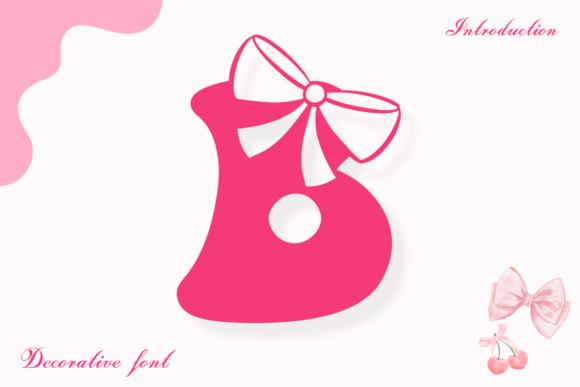
Groovy Cute Bow Font: The Perfect Blend of Retro Flair and Sweet Femininity
Are you a designer or crafter looking for a font that combines the best of both worlds – retro charm and sweet femininity? Look no further than the Groovy Cute Bow Font! This decorative font is designed to add a touch of playfulness and whimsy to your fashion branding, girly logos, and crafts. With its unique blend of playful shapes and adorable bow elements, Groovy Cute Bow is sure to make your designs stand out from the crowd.
What is Groovy Cute Bow Font?
Groovy Cute Bow Font is a carefully crafted decorative font that takes inspiration from the retro era, while infusing it with a modern twist of sweet femininity. The font features a range of playful shapes, including bows, flowers, and other decorative elements that are sure to add a touch of whimsy to your designs. Whether you’re creating a logo for a fashion brand, designing a label for a craft project, or simply looking for a fun and playful font to add to your design arsenal, Groovy Cute Bow is the perfect choice.
Key Features of Groovy Cute Bow Font
- Retro Flair: Groovy Cute Bow Font takes inspiration from the retro era, with a modern twist that makes it perfect for contemporary designs.
- Sweet Femininity: The font features adorable bow elements and playful shapes that add a touch of sweet femininity to your designs.
- Decorative Elements: The font includes a range of decorative elements, including bows, flowers, and other shapes that can be used to add visual interest to your designs.
- Playful and Whimsical: Groovy Cute Bow Font is designed to add a touch of playfulness and whimsy to your designs, making it perfect for fashion branding, girly logos, and crafts.
Uses for Groovy Cute Bow Font
Groovy Cute Bow Font is a versatile font that can be used in a variety of design applications, including:
- Fashion Branding: Add a touch of retro flair and sweet femininity to your fashion brand with Groovy Cute Bow Font.
- Girly Logos: Create a logo that’s both playful and feminine with Groovy Cute Bow Font.
- Whimsical Crafts: Add a touch of whimsy to your crafts, including scrapbooking, card making, and other paper crafts.
- Stationery and Invitations: Use Groovy Cute Bow Font to add a touch of playfulness and femininity to your stationery and invitations.
Tips for Using Groovy Cute Bow Font
Here are a few tips for getting the most out of Groovy Cute Bow Font:
- Use it as a Title Font: Groovy Cute Bow Font is perfect for use as a title font, adding a touch of playfulness and whimsy to your designs.
- Mix and Match: Experiment with mixing and matching Groovy Cute Bow Font with other fonts to create a unique and visually interesting design.
- Add Decorative Elements: Take advantage of the decorative elements included in Groovy Cute Bow Font to add visual interest to your designs.
Groovy Cute Bow Font is a unique and versatile font that’s perfect for designers and crafters looking to add a touch of retro flair and sweet femininity to their designs. With its playful shapes, adorable bow elements, and whimsical charm, Groovy Cute Bow is sure to make your designs stand out from the crowd. Whether you’re creating a fashion brand, designing a logo, or simply looking for a fun and playful font to add to your design arsenal, Groovy Cute Bow Font is the perfect choice.